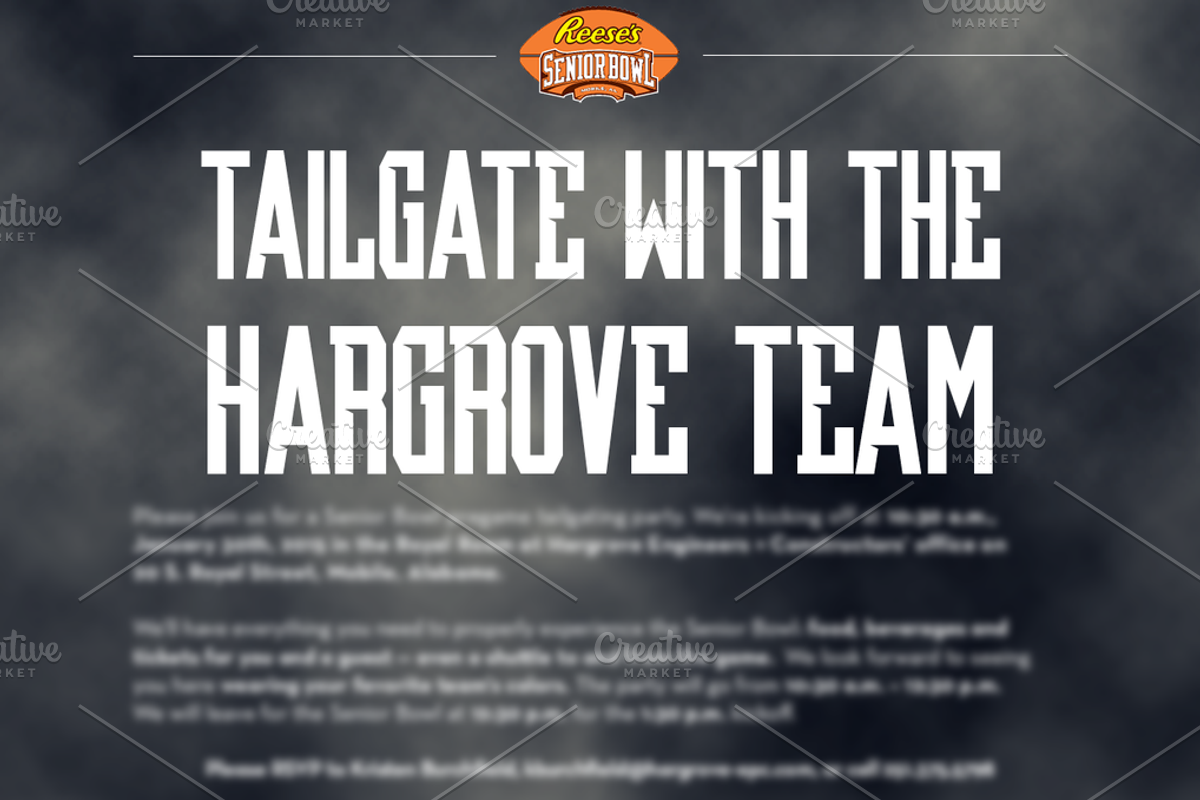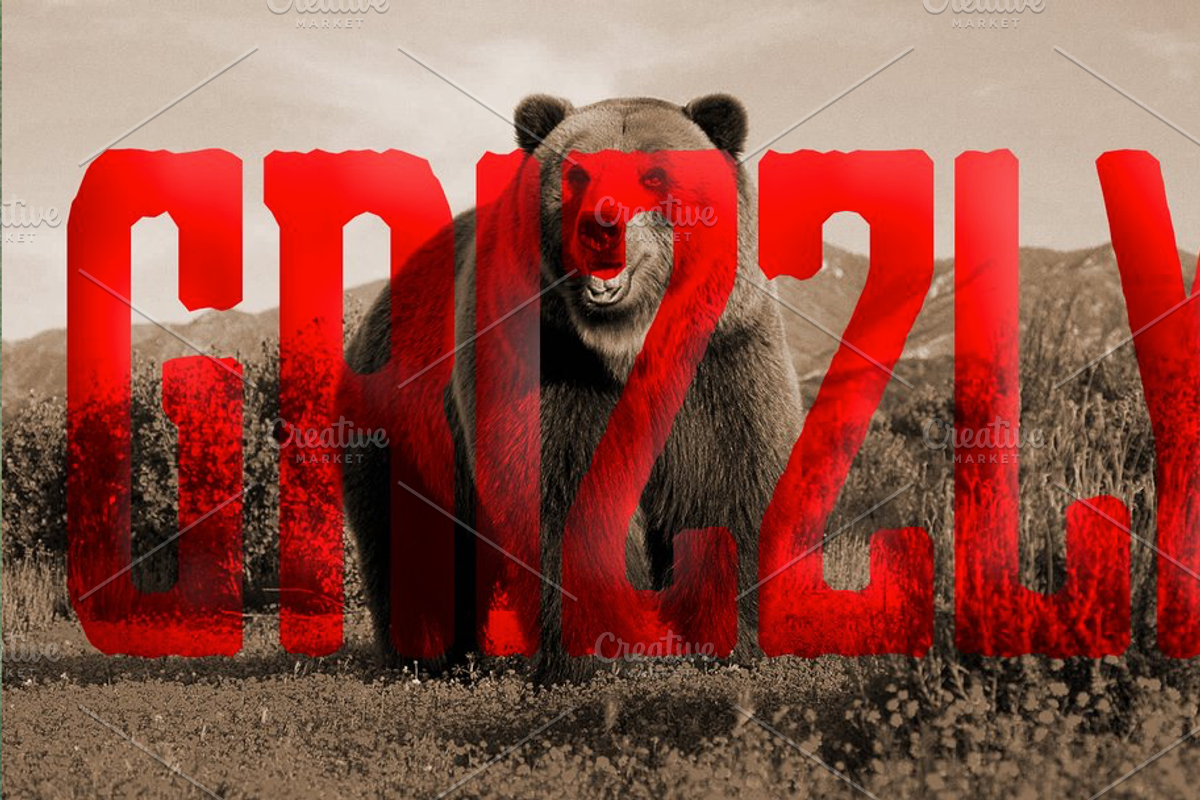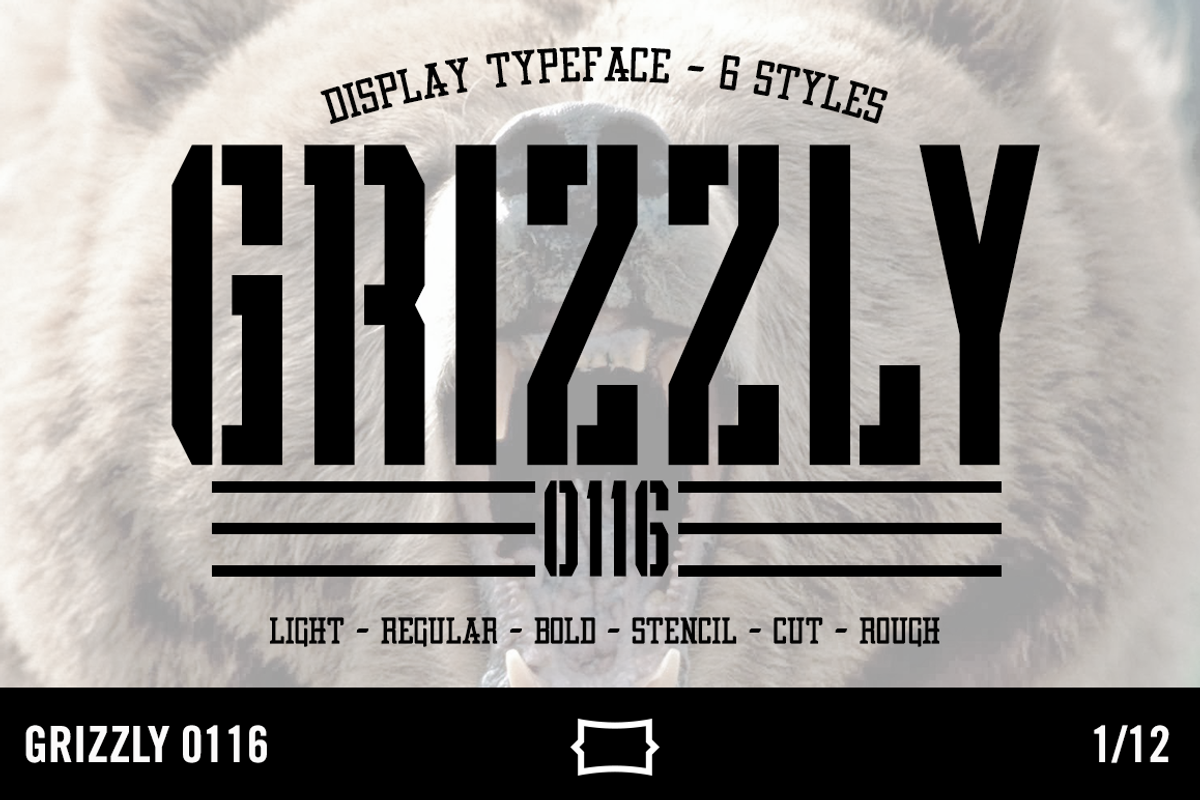
Grizzly 0116 Display Typeface
Bearing 6 different styles, Grizzly 0116 is hear to take over.
Light, Regular, & Bold - Based on the fact that you're here looking at typefaces, I can only assume that you have good taste and do not need the explanation of these styles.
Stencil (Seen above) - This style breaks the mold of traditional stencil type by simplifying the points of the stencil break, instead of putting them in the center on each glyph.
Cut - This style is created to give a bevel feel to the typeface. If you're a fan on sports type, particularly in college branding, you're very familiar with this look. (check out the "Reese's Senior Bowl" example created by Jason Frostholm)
Rough - Simply put, it's Grizzly 0116 with rough edges. (check out the "Grizzly Bear" example created by Dylan Winters)
Grizzly 0116 is the first in a series of 12 fonts, each produced monthly, that will be released in 2016.